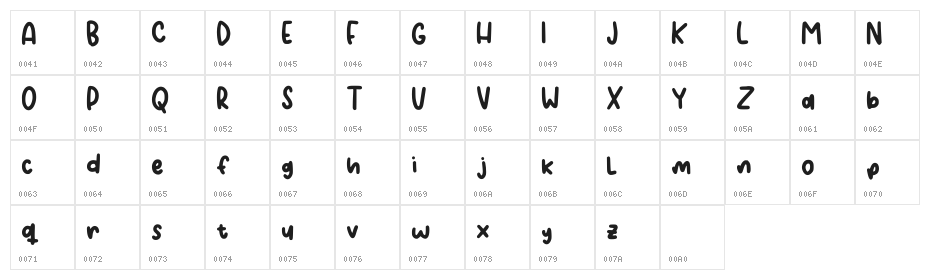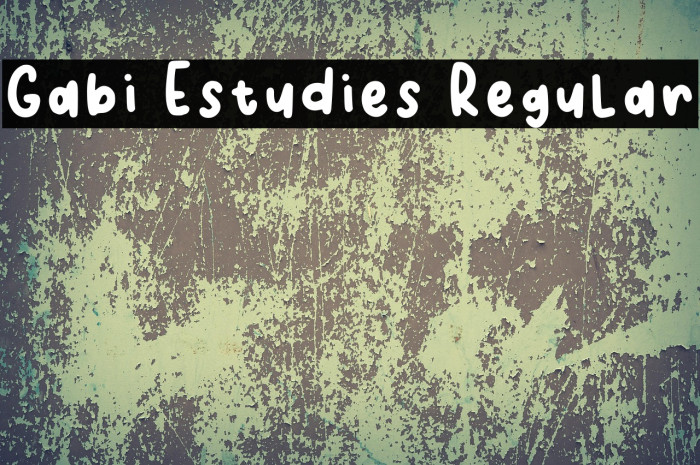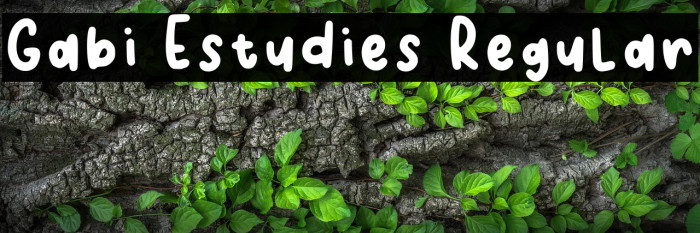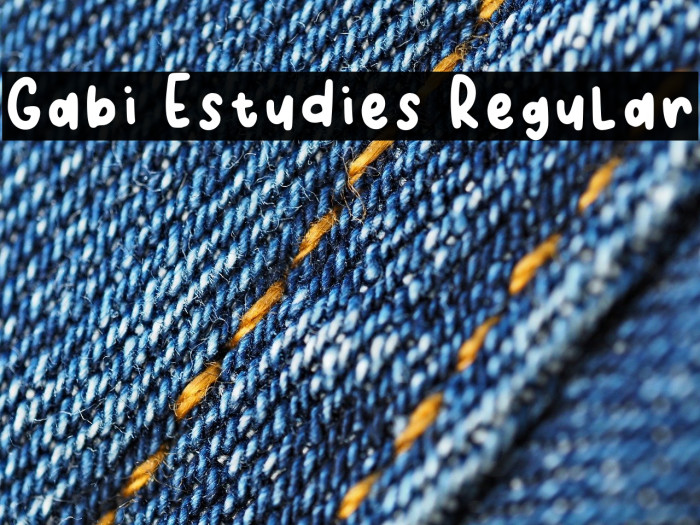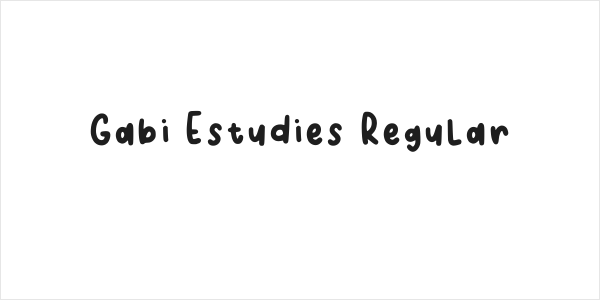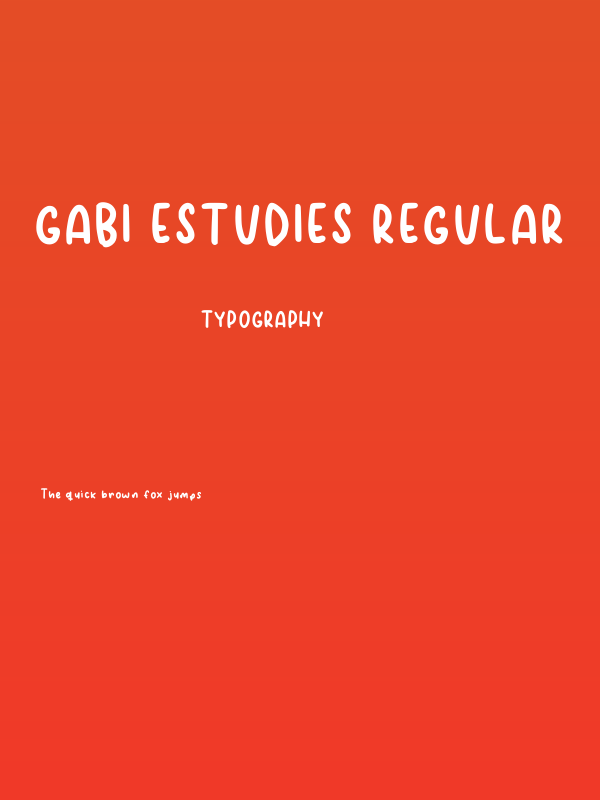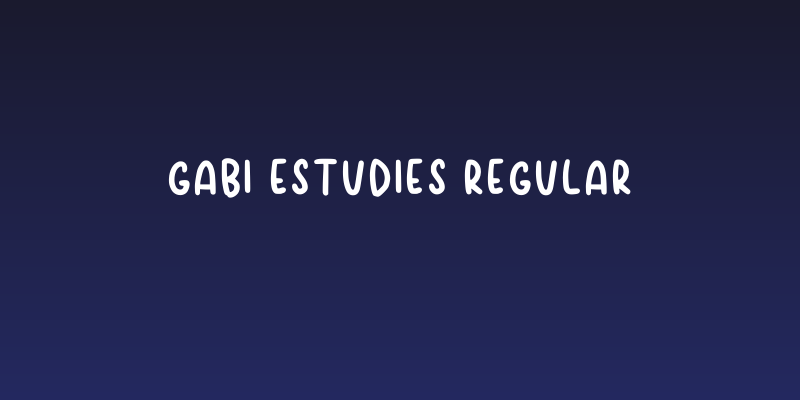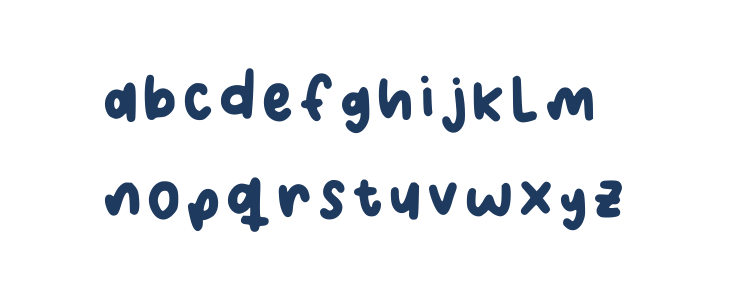
Gabi Estudies Regular Font
Gabi Estudies Regular Description
This font features a playful and rounded style, characterized by its bold and friendly appearance. The letters are uniformly thick, with a smooth and consistent stroke that gives it a casual, handwritten feel. The uppercase and lowercase letters maintain a consistent height, contributing to its approachable and informal aesthetic. The numbers and special characters follow the same design principles, ensuring a cohesive look across all elements. This font is ideal for projects that require a touch of whimsy and warmth, making it suitable for children's books, playful branding, or casual invitations.
| Proposed Projects | Children's books, playful branding, casual invitations, greeting cards. |